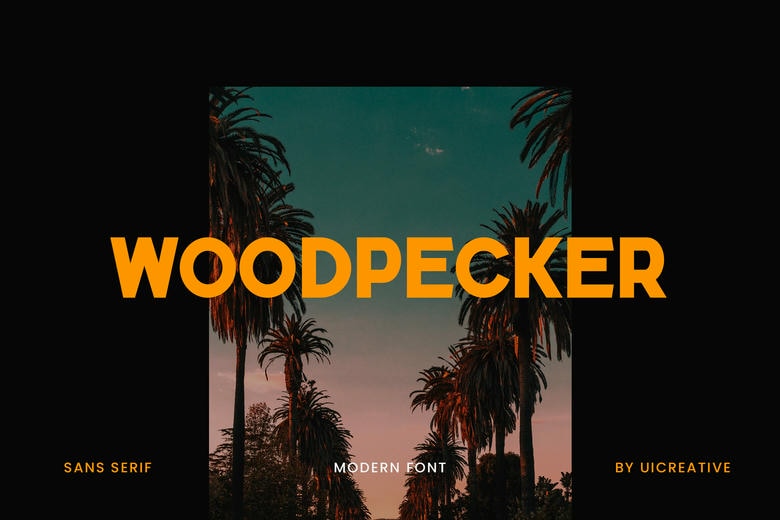
Wooppecker Font
Wooppecker is an elegant and bold sans serif font. Fall in love with its incredibly versatile style and use it to create gorgeous wedding invitations, beautiful stationary art, eye-catching social media posts, and much more!
Wooppecker Sans Serif Font